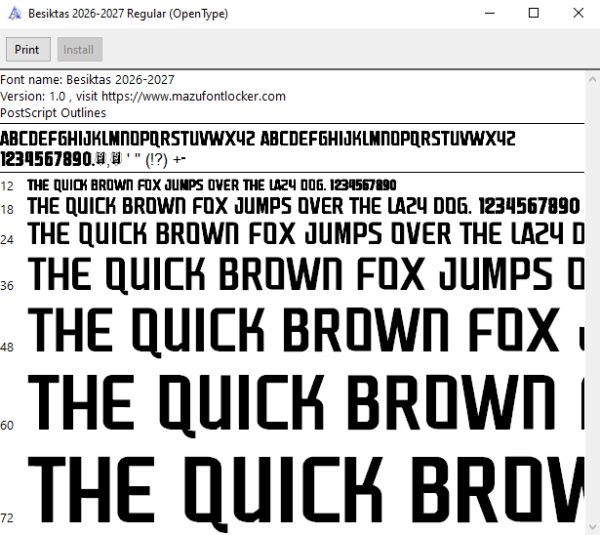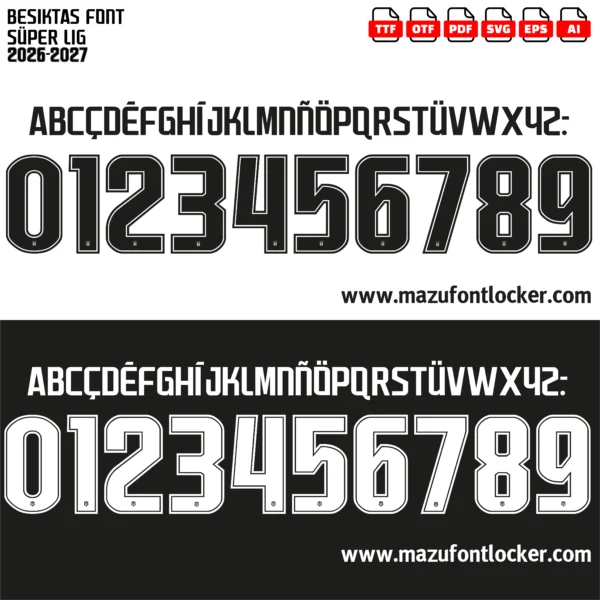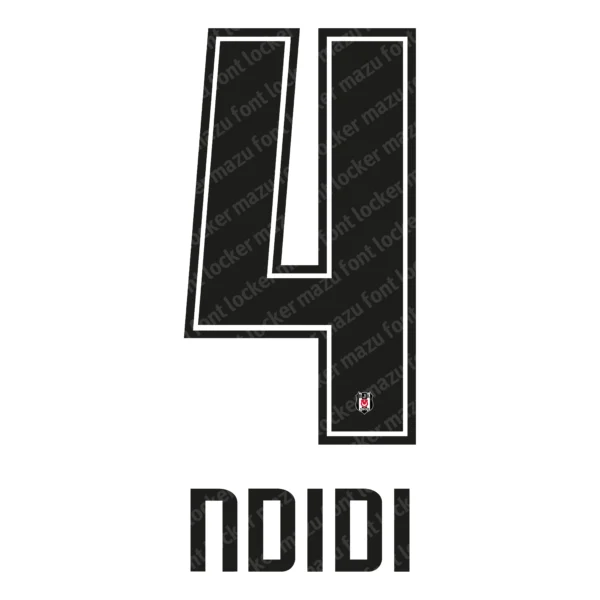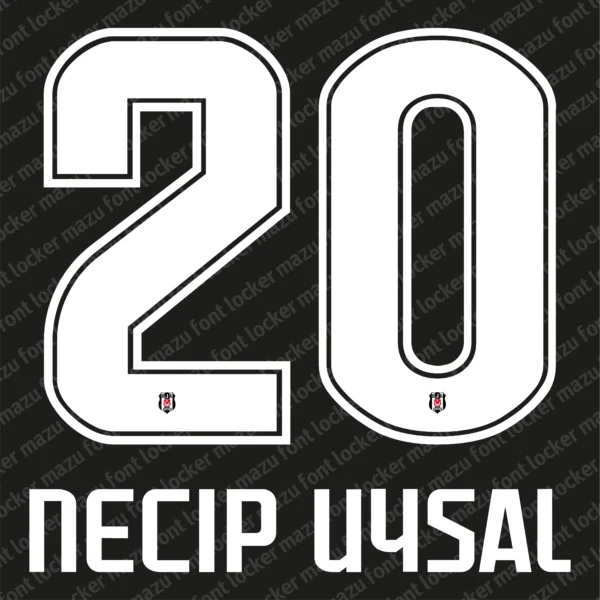
Besiktas 2026-2027 Font Vector – Epic Black Eagles Fierce Dominance Masterpiece
This premium font captures the bold, fierce, and championship-driven typography that perfectly embodies the spirit of the Black Eagles — delivering pure Turkish fire, relentless ambition, warrior-like determination, attacking flair, and the legendary football culture that transformed Besiktas into one of Europe’s most feared and passionate football giants.
Besiktas 2026-2027 Font Vector – Stunning Black Eagles Fierce Typeface
The Besiktas 2026-2027 Font Vector is a premium typeface that accurately recreates the official match lettering worn by Beşiktaş during the 2026-2027 season. This high-quality vector font kit captures the bold, aggressive, and iconic typography that defines one of the biggest and most passionate clubs in Turkish football.
This font stands out thanks to its faithful recreation of the official shirt lettering used by Beşiktaş during the 2026-2027 season. Every character has been carefully crafted to match the authentic player names and numbers seen on the pitch. Whether you are designing realistic kit concepts or creating football-themed artwork, the Besiktas 2026-2027 Font Vector delivers professional-quality authenticity.
The letterforms feature a clean, athletic, and powerful design that reflects Beşiktaş’s legendary status and the electric atmosphere of Vodafone Park. The balanced proportions and sharp detailing provide excellent readability while maintaining the club’s fierce Turkish identity.
The numerals are bold, modern, and highly recognizable, closely matching the official squad numbers used throughout the 2026-2027 season. The vector format ensures perfect scalability for both digital and print applications.
• Complete uppercase A–Z and numbers 0–9 in authentic Besiktas 2026-2027 style
• Includes accurate crest glyph positioning for realistic jersey customization
The Besiktas 2026-2027 Font Vector is an independently designed typeface package created to replicate the official shirt lettering style used by Beşiktaş during the 2026-2027 season. It is ideal for retro football projects, jersey customization, fan artwork, historical recreations, and sports design work.